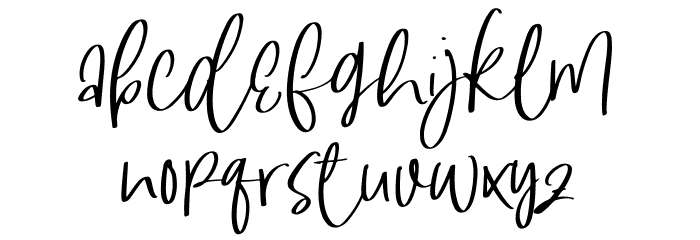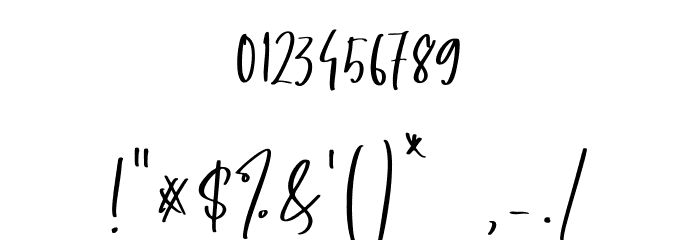
South Dreamers Alternate Font
This font exudes a lively and expressive handwritten style, characterized by its flowing and dynamic letterforms. The uppercase letters are bold and slightly elongated, giving a sense of movement and energy. The lowercase letters maintain a consistent rhythm with a playful touch, featuring loops and curves that enhance its handwritten appeal. The numbers are clear and legible, matching the overall aesthetic with a slight slant. Special characters are creatively integrated, maintaining the font's whimsical nature. This font is perfect for projects that require a personal and artistic touch, such as invitations, greeting cards, or branding materials.
A lively and expressive handwritten font with dynamic letterforms.
- Proposed Projects: Ideal for invitations, greeting cards, branding, and artistic projects.
- Use Case: Logos, Headlines, Artistic projects